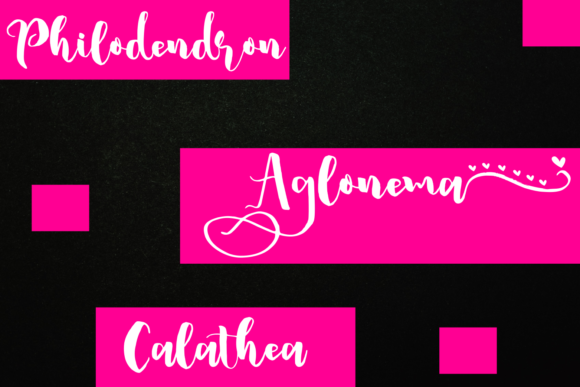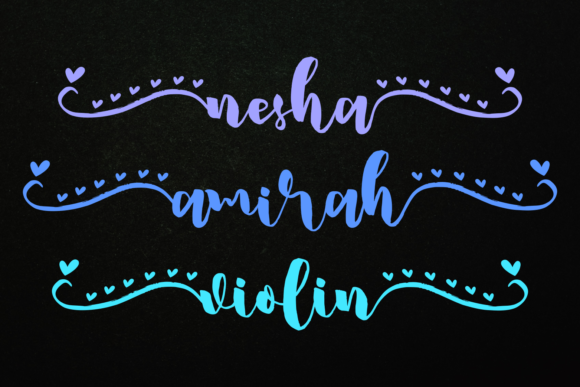
Nesha Font
db-ku.com - Script & Handwritten -- Nesha is a beautiful and romantic handwritten font. It looks lovely on every design that needs a customized touch.